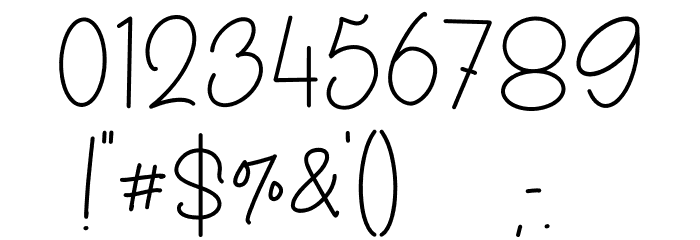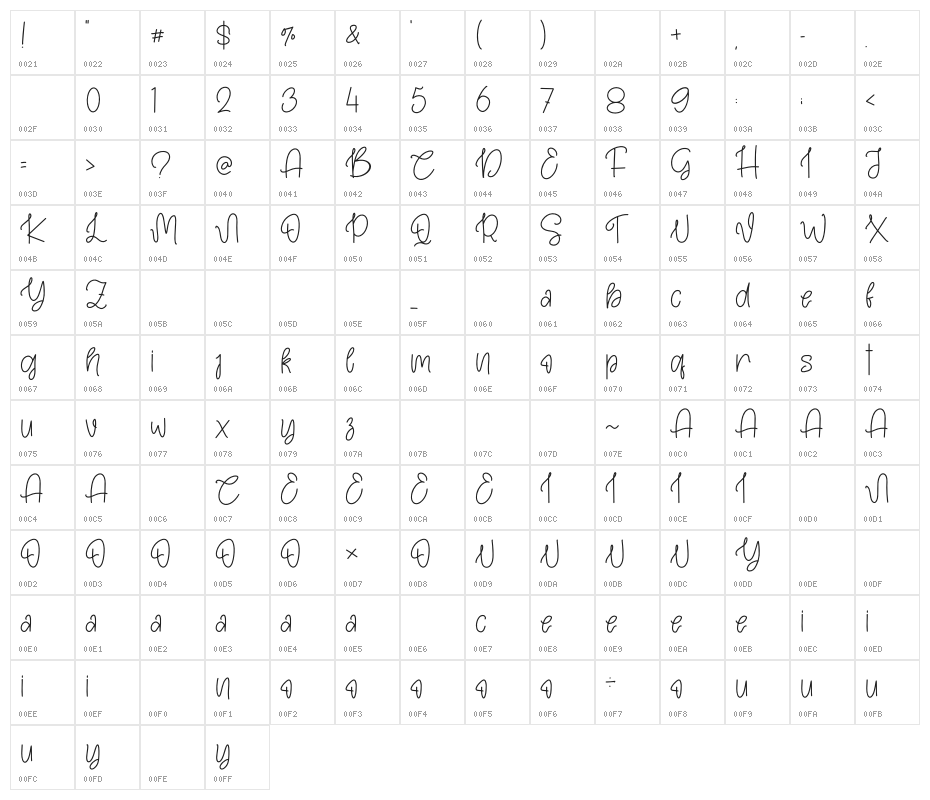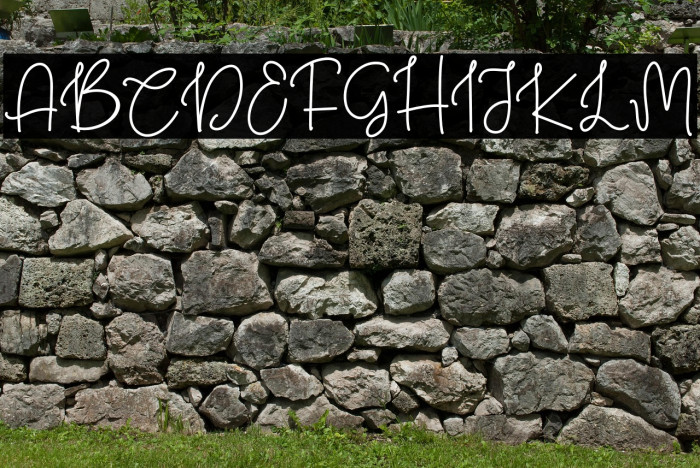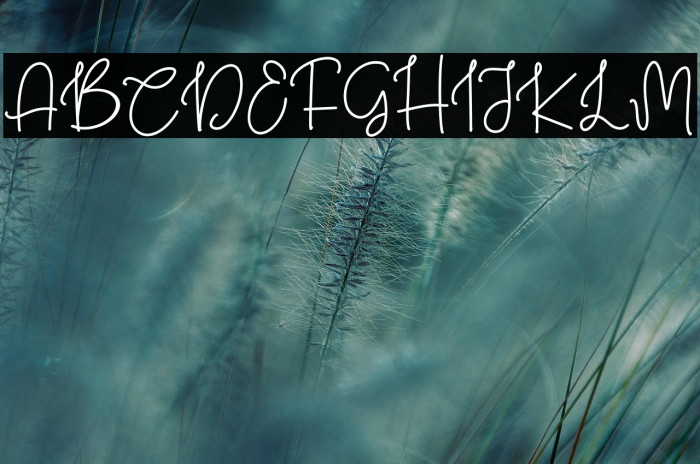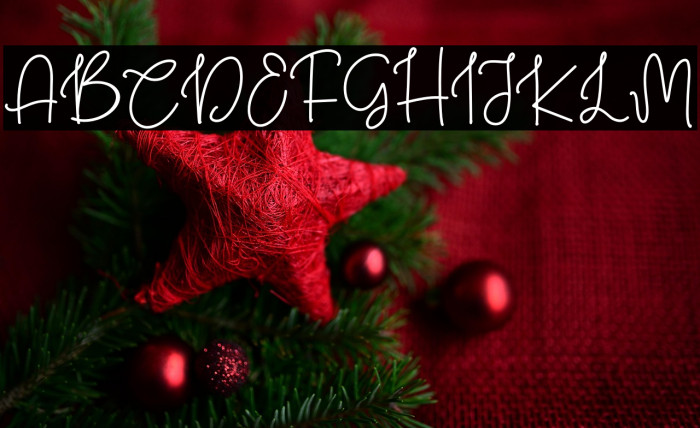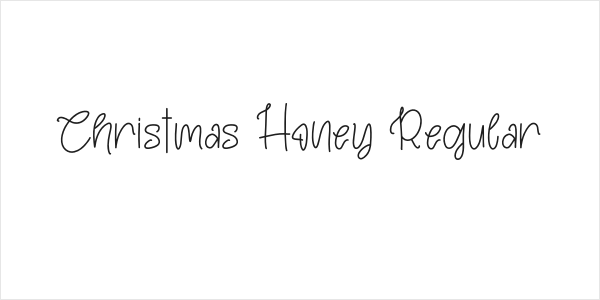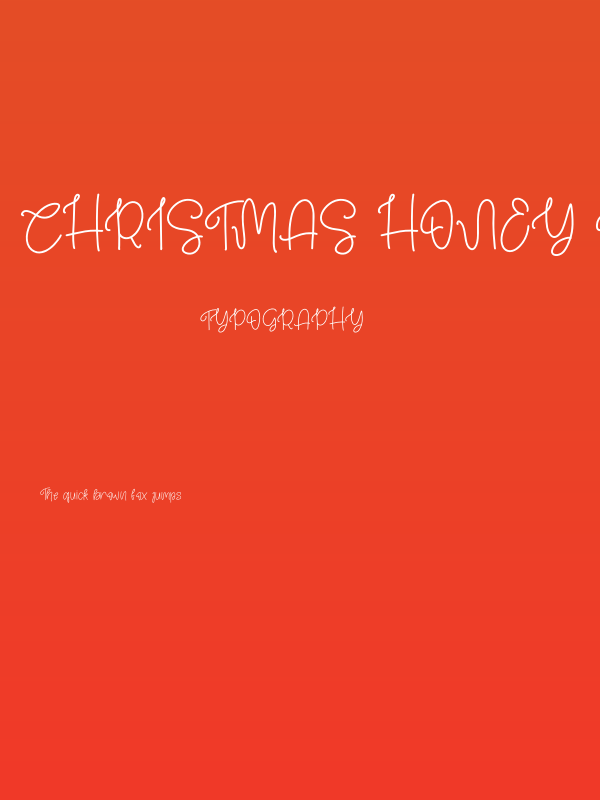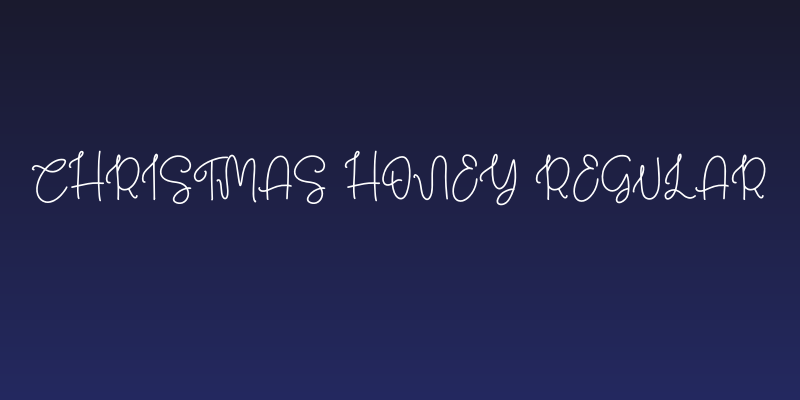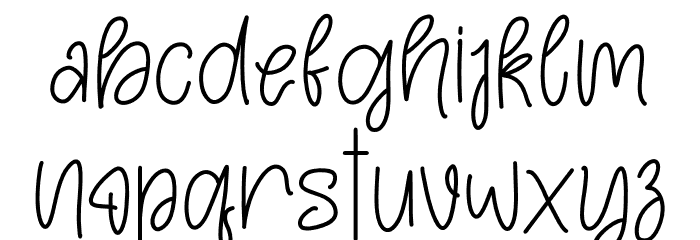
Christmas Honey Regular Font
Christmas Honey Regular Description
A playful, handwritten script font with tall, narrow letters and smooth, rounded curves. The strokes are consistent in thickness, giving it a casual and friendly appearance. The characters are slightly irregular, enhancing the hand-drawn feel.
| Width | Condensed |
| Overall Style | Playful, Casual, Decorative |
| Use Case | Headlines, Short text, Logos, Invitations |
| Proposed Projects | Greeting cards, invitations, social media graphics, children's books, festive branding. |